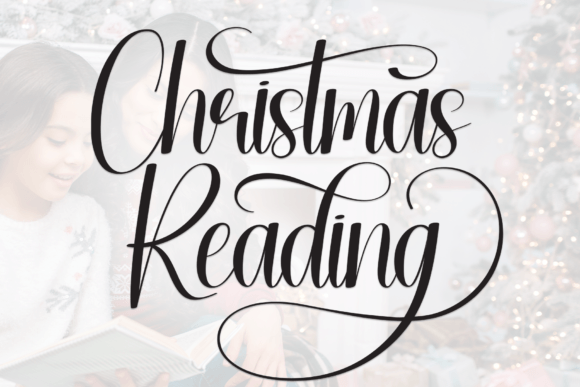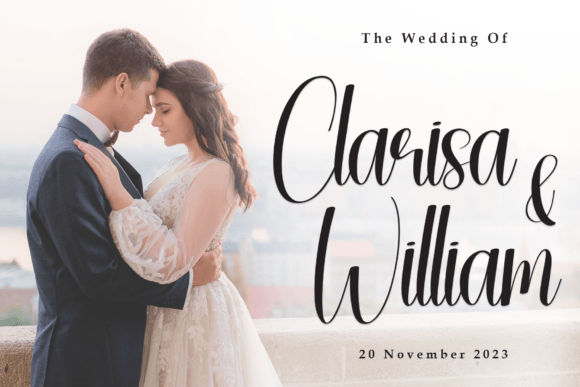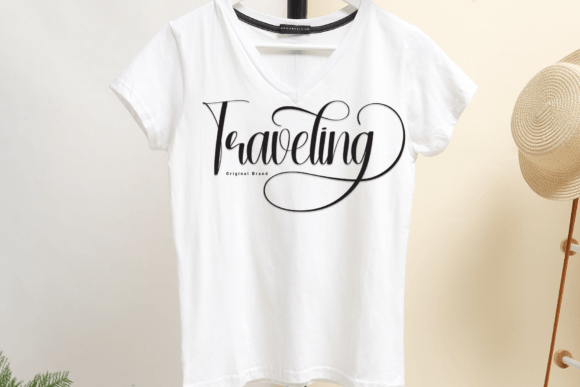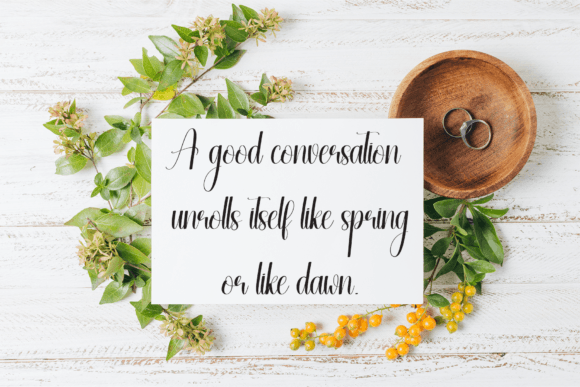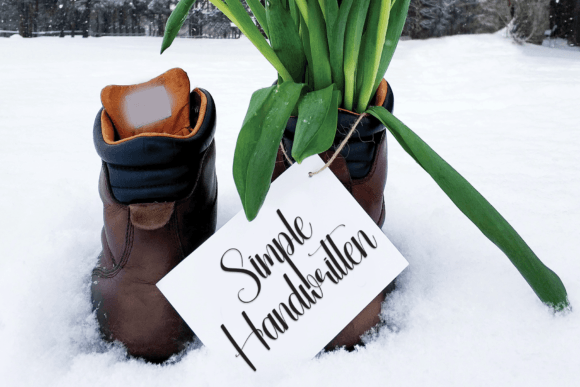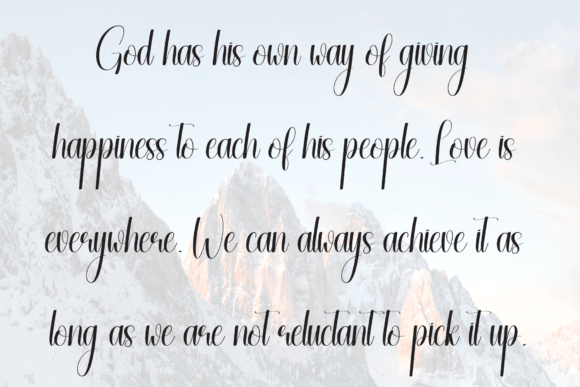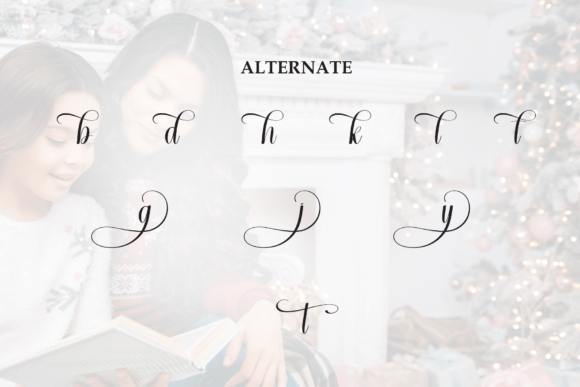
Discover the Magic of Christmas Reading Font
As the snowflakes start to fall and the fireplace crackles, I find myself curled up with a warm cup of hot chocolate, surrounded by the twinkling lights of the Christmas tree. It’s the perfect moment to get lost in a good book, or better yet, create something special with a beautiful font that captures the essence of the season. And that’s exactly where the Christmas Reading Font comes in – a stunning script font that adds a touch of elegance and whimsy to any design.
Whether you’re a graphic designer, a stationery enthusiast, or simply someone who loves to create, the Christmas Reading Font is a valuable addition to your toolkit. Its versatility and sophistication make it perfect for a wide range of projects, from wedding invitations to business cards, and everything in between.
Christmas Reading Font Key Features
- Unique Characteristics: The Christmas Reading Font features a classic, elegant design with intricate details and ornaments, making it perfect for festive and holiday-themed projects.
- Language Support: The font supports a wide range of languages, including Latin, Cyrillic, and Greek, making it suitable for international projects.
Christmas Reading Font Review
The Christmas Reading Font is a delightful addition to any holiday-themed project. It’s perfect for book titles, magazine covers, and other festive designs ✨. The font’s elegant script and classic feel evoke a sense of nostalgia and warmth, making it ideal for Christmas and winter-themed projects.
The font’s flexibility and variety of styles are major advantages. It comes in multiple weights and ornaments, allowing designers to customize their designs to suit their needs. The font’s compatibility with various operating systems and devices is also a significant plus ✨.
While the Christmas Reading Font is a great choice for many projects, it does have some limitations ⚠️. The font’s complexity can make it difficult to pair with other fonts, and its size can be overwhelming in certain designs. Additionally, the font’s ornaments and decorations can be overwhelming if overused.
Overall, the Christmas Reading Font is a great addition to any designer’s toolkit. Its unique style and flexibility make it a great choice for holiday-themed projects. However, designers should be aware of its limitations and use it judiciously to avoid overwhelming their designs.
Design Tips
- Use the font sparingly to avoid overwhelming your design.
- Pick a limited color palette to complement the font’s elegance.
- Experiment with different weights and ornaments to find the perfect combination for your project.
For the best results, use the Christmas Reading Font in conjunction with festive graphics and colors. Experiment with different font sizes and styles to create a visually appealing design.
The Christmas Reading Font is perfect for holiday-themed designs, such as Christmas cards, gift tags, and book covers. It’s also great for adding a touch of festive cheer to social media posts and website headers.